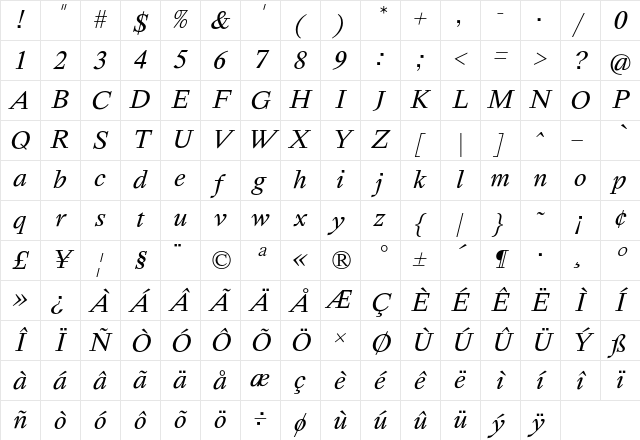
Happy Times at the IKOB New Game Plus Edition Italic
Design Context for Happy Times at the IKOB New Game Plus Edition
Happy Times at the IKOB New Game Plus Edition is a composed and adaptable typeface that performs quietly and consistently across a wide range of design contexts. The slanted form adds forward momentum and visual energy.
Pro Tip: Use Happy Times at the IKOB New Game Plus Edition for emphasis, pull quotes, and subheadings where its slanted energy can add rhythm to the layout.